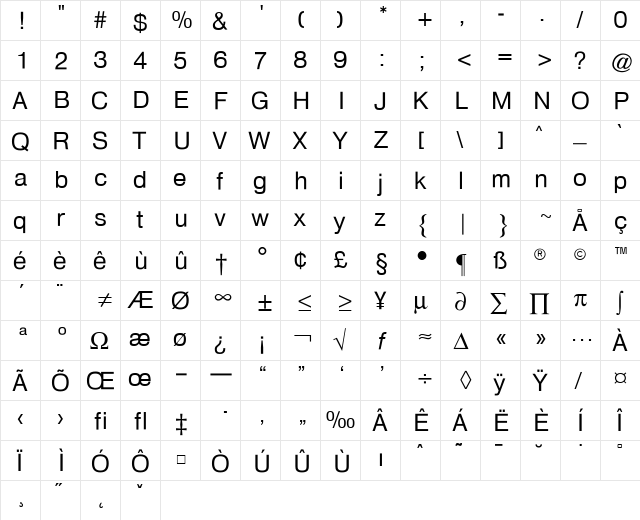
CgHeldustry Regular
Design Context for CgHeldustry Typeface
CgHeldustry is a composed and adaptable typeface that performs quietly and consistently across a wide range of design contexts.